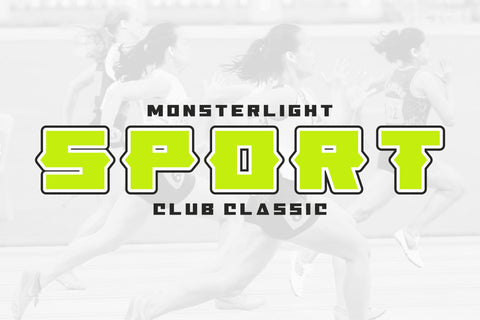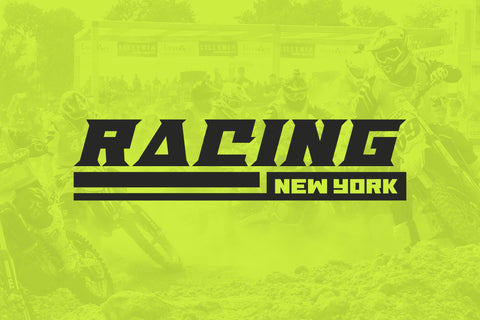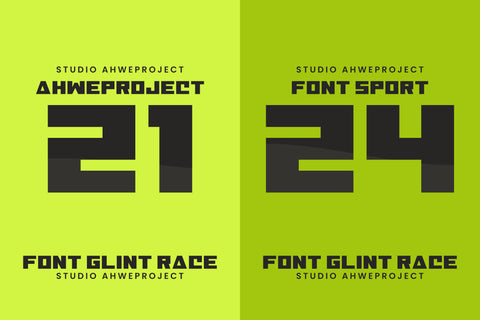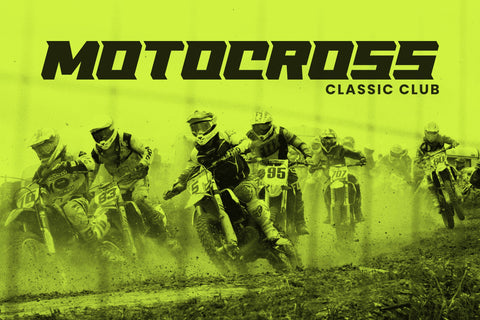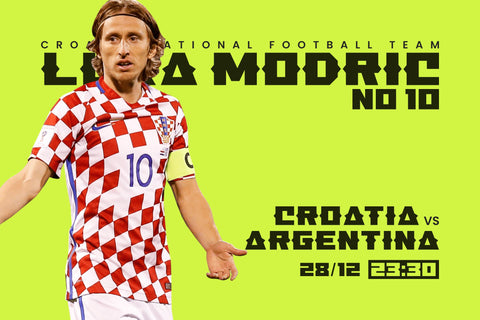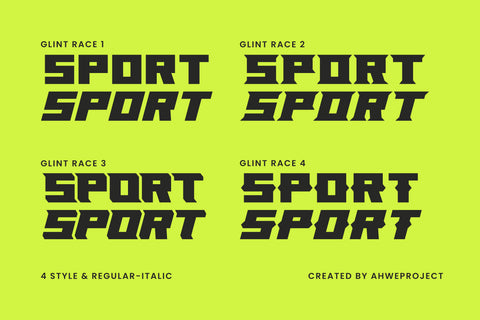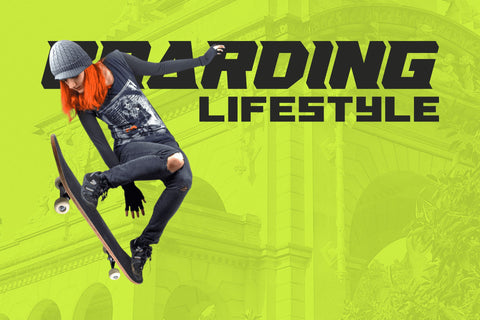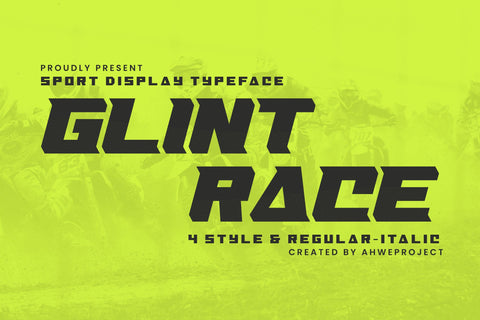
Glint Race
Introducing Glint Race – a robust display font that radiates speed and agility. Integrating seamlessly into racing-themed applications, this font is the ideal choice to invigorate your magazines, infuse energy into your games, or add a bold touch to your brand logos and beyond. With Glint Race, give your projects a dynamic aesthetic edge that will leave an unforgettable impression.